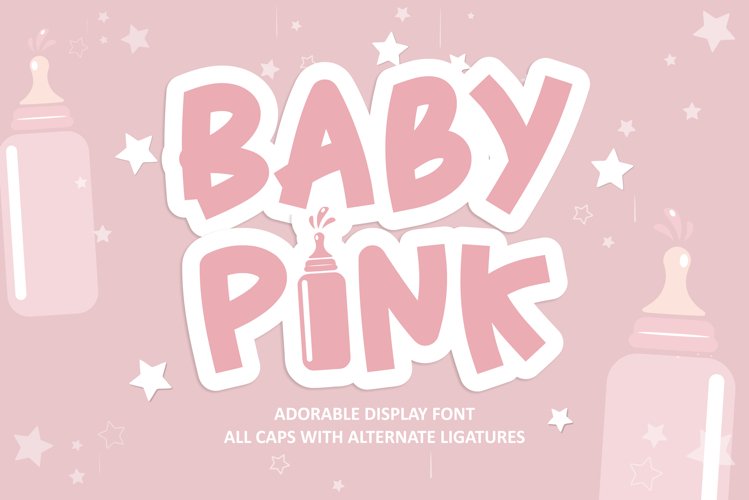
Baby Pink
Baby Pink Pro
Introducing Baby Pink font, a delightful and whimsical display font that brings a touch of cuteness and charm to your designs. With its cartoon-like appearance, this font is the perfect choice for a wide range of creative projects. Whether you’re designing children’s games, crafting quotes, creating captivating titles, developing a dress brand name, designing a book cover color, or crafting eye-catching posters, Baby Pink font will add a beautiful touch to your creations.
Immerse yourself in the adorably handwritten style of this font, which exudes a sense of playfulness and uniqueness. Its bold design and handwritten aesthetic make it truly stand out, while the abundance of alternative ligatures allows you to personalize it to reflect your own handwriting.
Unlock a world of creativity with Baby Pink font. Let your imagination run wild as you infuse your designs with the lovable and enchanting appeal of this font. Get ready to captivate your audience and make a lasting impression with the irresistible charm of Baby Pink font.